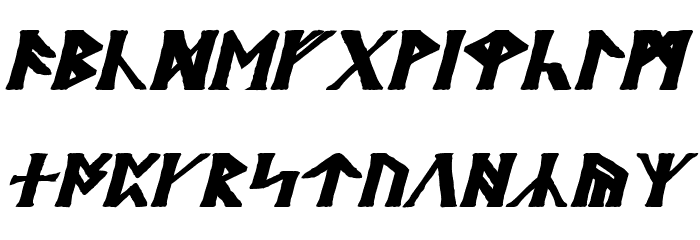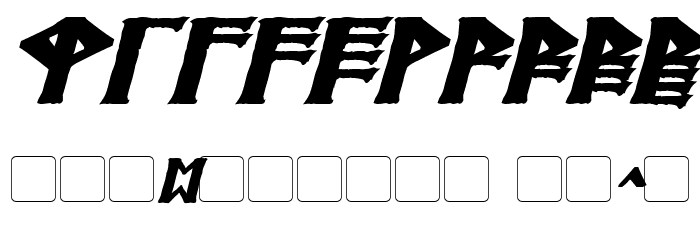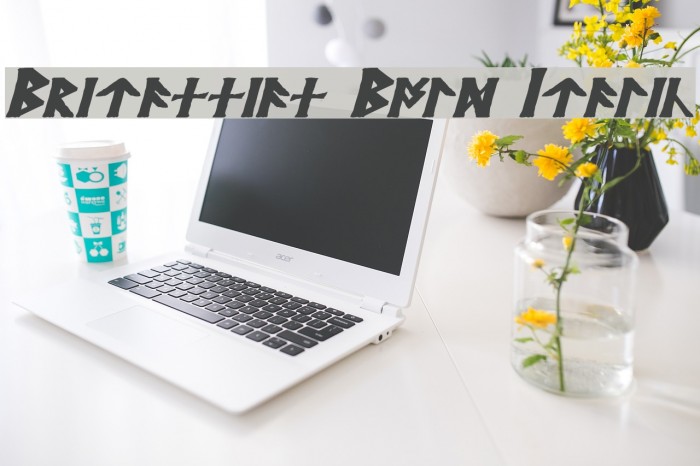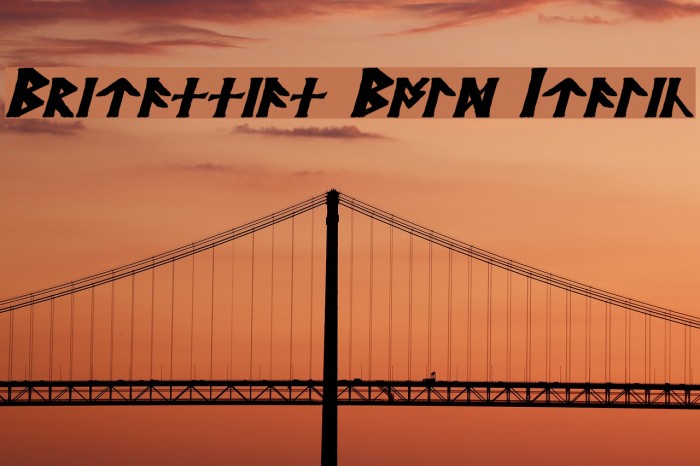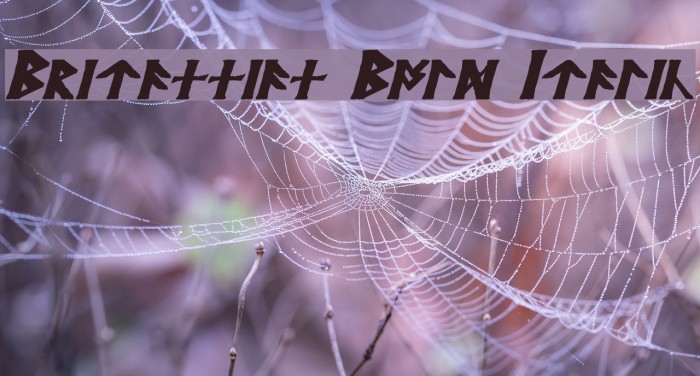
Britannian Bold Italic Font
This font features a bold and italicized style with a distinct, angular design reminiscent of ancient runic alphabets. The characters are heavily stylized with sharp edges and a consistent slant, giving them a dynamic and aggressive appearance. The uppercase and lowercase letters maintain a uniform height, contributing to a cohesive look. The numbers and special characters follow the same bold and angular theme, ensuring consistency across all glyphs. This font's unique style makes it stand out, ideal for projects that require a strong visual impact.
A bold, italicized font with angular, runic-inspired characters.
- Proposed Projects: Ideal for fantasy-themed designs, video game titles, movie posters, and branding that requires a strong, ancient aesthetic.